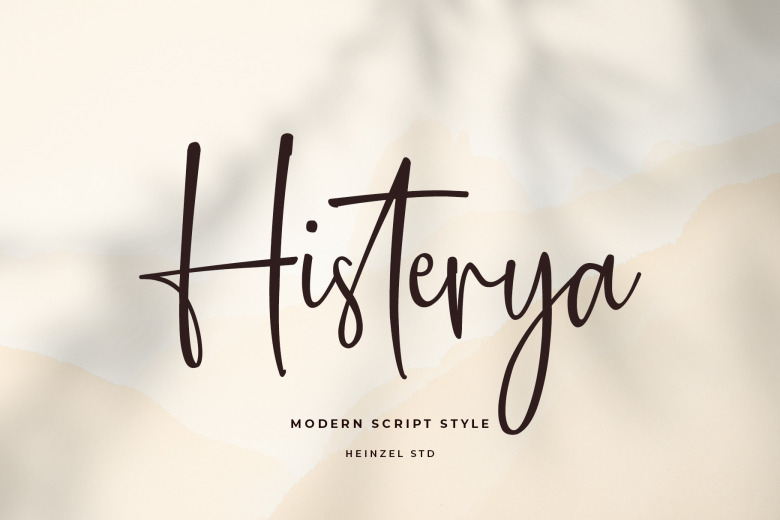
Histerya Font
Histerya tells a story of grace through its flowing forms and connected characters. This PUA encoded script brings both complexity and ease, with all glyphs readily available yet lines that meander at their leisure. Feel histories flow from this font, finding fresh meaning with each discovery.
Histerya Handwritten Script Font